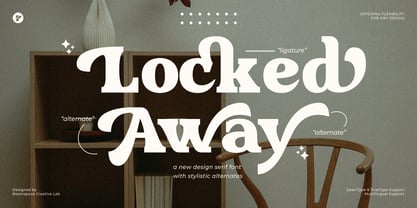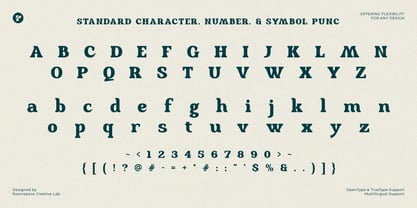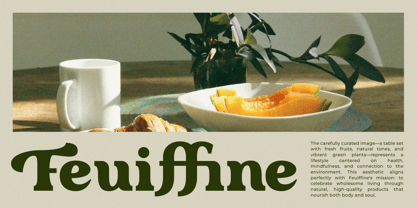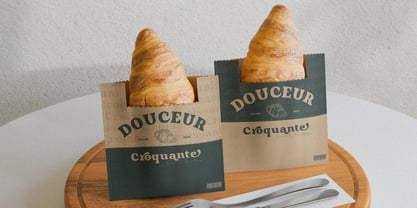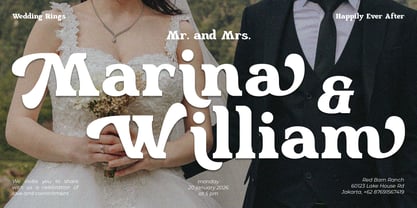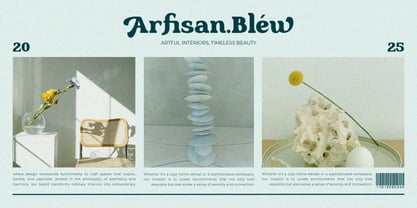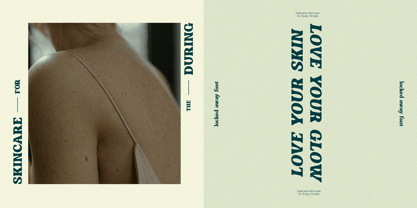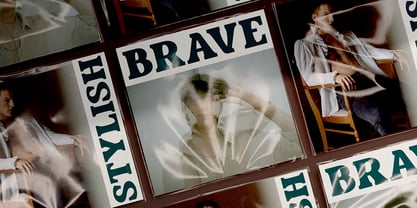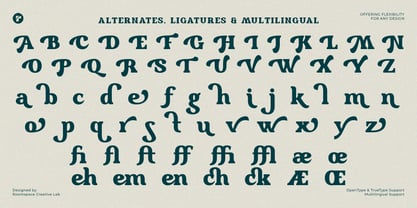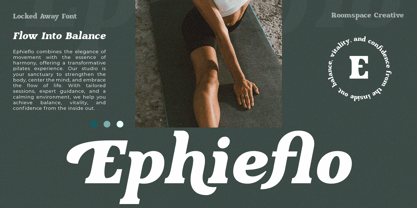
Locked Away
The Locked Away Font Family was designed by Bakhrudin Ja'far and published by Jafar07. Locked Away contains 2 styles and family package options. More about this family
Locked Away, a contemporary serif font that artfully combines sophistication with uniqueness. What truly sets Locked Away apart is its distinctive design: a complete set of swashes and tails that elevate each character, offering an elegant and creative touch.
These unique stylistic features can seamlessly integrate into your designs, allowing for endless layout possibilities and creative experimentation. Whether you're using the standard set of characters or exploring the decorative alternates, Locked Away guarantees striking typography in both uppercase and lowercase forms.
This versatile font is the perfect choice for modern logo and brand designs, luxurious product packaging, captivating display text, wedding invitations, website headers, and so much more. Its clean yet artistic aesthetic ensures it stands out in any application, making your work truly unforgettable.
• Uppercase & Lowercase
• Numbers & Punctuation
• Multilingual Support